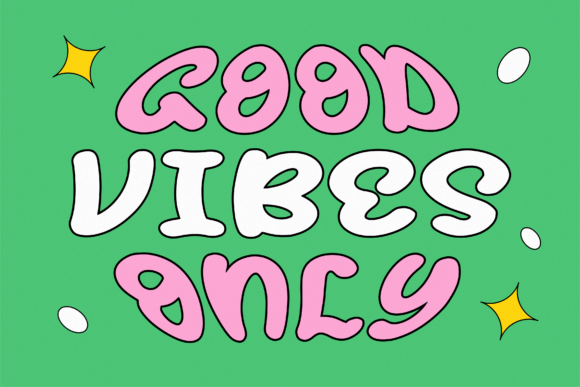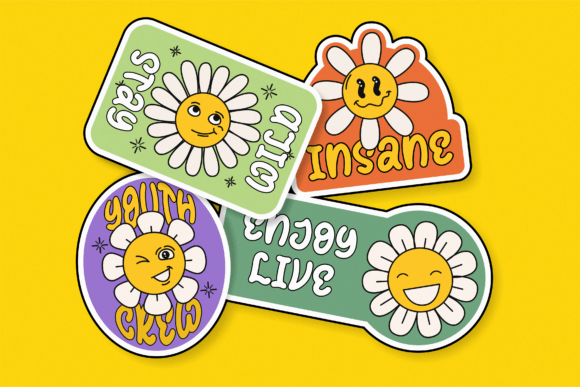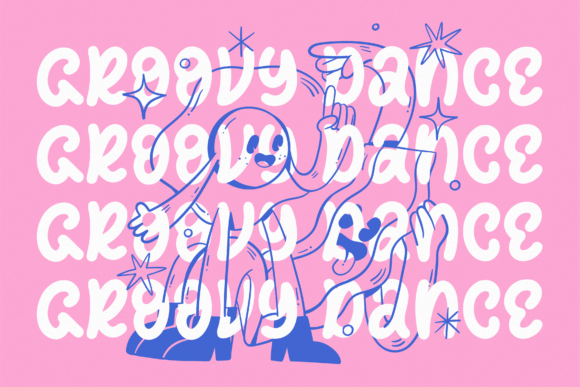
Introduction to Remind Mores Font
Immerse yourself in a buoyant retro vibe with Remind Mores – an aesthetic display font that is a perfect harmonization of classic and cheerful.
This groovy font breathes life into your creative endeavours, exuding a nostalgic aura which makes it a matchless choice for a plethora of projects From giving an edge to your product packaging and magazine designs to lending an unforgettable persona to your social media and wedding themes, Remind Mores is the quintessential punctuation to your backdrop, making every word spelled above it expressively distinctive.
Key Features of Remind Mores Font